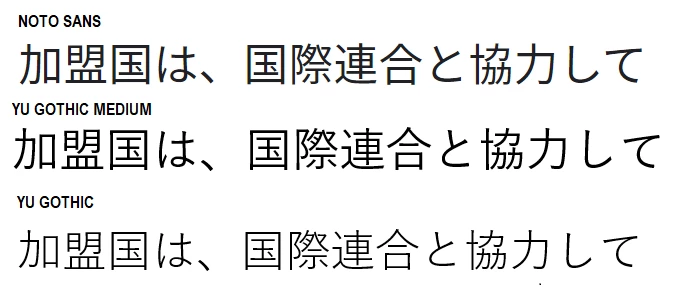
Asian fonts not correct in pdf
I have a frame document in japanese language with font Noto Sans JP. When I create a pdf, the font is not displayed correctly in the output pdf. If I use the option "Use Distiller", then the fonts are displayed correctly, but png graphics with transparent background are not displayed transparent in pdf output.
This is a dilemma: either the font is correct or the graphics. But I need both.
How to solve this?
I just played around with some fonts, and Yu Gothic Medium (which is available in FM) looks to be very close to Noto Sans JP (it has upward 'brushstrokes/flairs' on bottom of the straight lines for は and に, etc., just like Noto Sans). See the attachment.
But of course the characters should be displayed correctly also with FrameMaker's own PDF engine.
By the way, are only Asian characters changed? Or also those with a Western font?
Meanwhile, what what does "font is not displayed correctly" mean, and is the problem specific to that font? How do other Asian fonts behave?
And, while this might not be the situation, I see that Noto Sans JP includes 65536 glyphs. That means that at least 10,000 of them are not Unicode BMP (U+FFFF and lower), but are in one or more of the Supplementary Planes. SMP codepoints (U+10000 and up) don't work at all yet in FM.